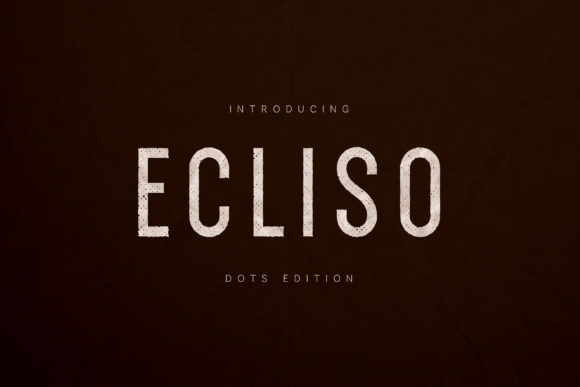
Ecliso: The Textured Sans Serif for Modern Brands
Finding a font that balances contemporary clarity with a touch of human warmth can be a real challenge. Many modern sans serif fonts feel sterile, while overly decorative typefaces sacrifice legibility. Ecliso steps into this space with a unique proposition. It’s a premium font built on a clean, geometric foundation, but its defining feature is a subtle, dotted grain texture applied to each letterform. This isn’t a rough, gritty effect; it’s a controlled, sophisticated texture that injects personality and a handcrafted quality into otherwise structured text. The result is a typeface that feels both polished and personal, professional yet approachable.
Visually, Ecliso presents as a modern textured sans serif. The letter shapes are familiar and highly legible, making it a versatile workhorse. The dotted grain is the star, giving the font a tactile quality reminiscent of stipple illustrations or screen printing. Depending on the size and application, this texture can be a bold statement or a subtle whisper. At large scales, like on a poster or logo, the individual dots become part of the design's character. In smaller text blocks, the effect softens, adding depth without distracting the reader. This duality makes Ecliso a powerful tool for creators who want their designs to stand out from the sea of flat, digital-looking typography.
Where Ecliso Truly Shines: Practical Applications
The strength of a font like Ecliso lies in its ability to adapt. It’s not a one-trick pony confined to a single niche. Its clean structure makes it suitable for a wide range of projects where clarity is key, while its texture adds the creative flair needed to make a design memorable.
For brand identity and logo design, Ecliso excels. A logo needs to be recognizable, scalable, and reflective of a brand's personality. Ecliso’s textured nature gives logos an instant sense of authenticity and craftsmanship. It works beautifully for boutique brands, artisanal products, creative agencies, and lifestyle companies that want to project an image of thoughtful design. Imagine it on a coffee bag, a skincare label, or the masthead of a creative studio’s website—it immediately sets a distinct tone.
In editorial and packaging design, Ecliso brings pages and products to life. For magazine titles, chapter headings, or pull quotes, it commands attention without resorting to ornate script or handwritten fonts. On packaging, it helps products jump off the shelf. The texture suggests quality and care, which can subconsciously influence a customer’s perception of the product inside. It’s a fantastic choice for social media graphics and web design headlines as well, providing visual interest that can stop the scroll in a crowded feed.
Integrating Ecliso: A Designer's Practical Guide
Choosing the right font is only half the battle; using it effectively is what makes a design succeed. When working with Ecliso, consider its role in your visual hierarchy. Its textured weight is ideal for headlines, subheadings, and short, impactful statements. It naturally draws the eye, making it perfect for elements you want to emphasize. For body copy, especially in digital formats or small print, you may want to pair it with a simpler, non-textured sans serif or a classic serif font to ensure maximum readability over long paragraphs.
Font pairing is where Ecliso can really sing. Because it has a strong personality, it benefits from a supporting cast that complements rather than competes. Try pairing it with a clean, geometric sans serif like Montserrat or Poppins for a modern, cohesive look. For a more dynamic contrast, a refined serif font like Lora or Playfair Display can create an elegant tension. Always test your pairings in context—view them at the size they’ll be used and in the color scheme of your project.
Ultimately, Ecliso is more than just a creative font; it’s a design asset that bridges the gap between digital precision and analog charm. It offers a solution for anyone building a brand identity, crafting editorial layouts, or designing marketing materials that need to feel both professional and human. By understanding its strengths and applying it thoughtfully, you can leverage this modern typography tool to create work that resonates, engages, and stands the test of time.